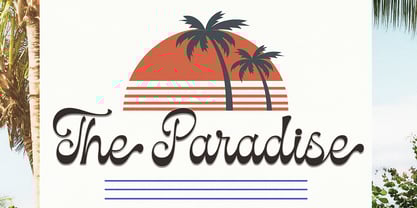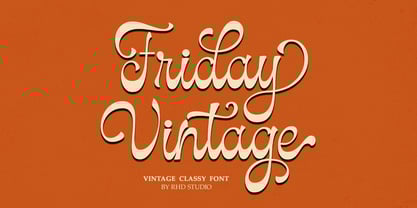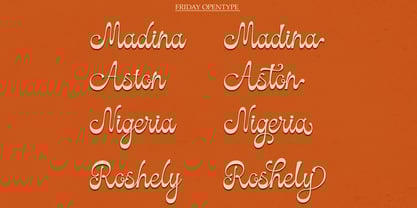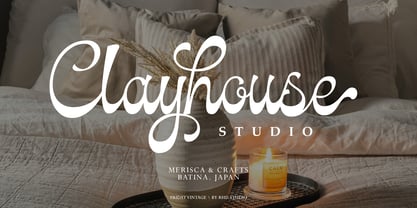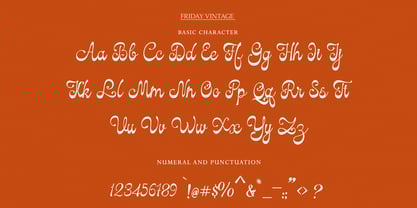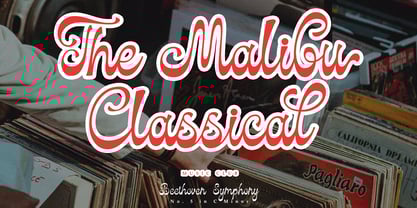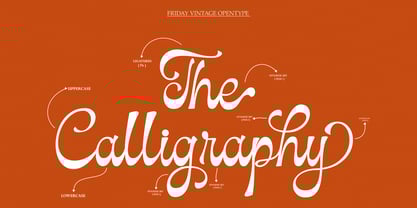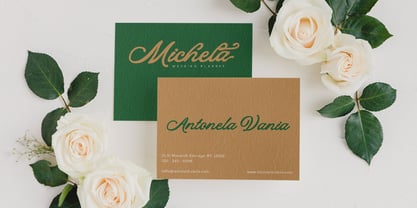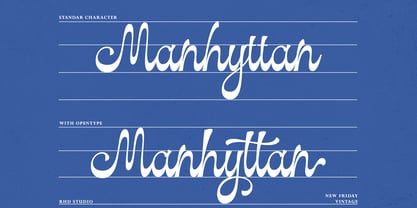
Friday Vintage
by Rhd Studio
The Friday Vintage Font Family was designed by Rahmad Rizky and published by Rhd Studio. Friday Vintage contains 1 styles.
Friday Vintage is a modern classic style script font inspired by classic handwriting in books. This font is complete with 90+ style sets, Contextual Alternatives, ligatures and also multi-language support which adds aesthetics that make your work even more attractive. This font is perfect for your creative projects like Logotype, printed quotes, invitations, cards, product packaging, headers, Letterheads, Apparel, Web design, Magazines, Books, etc.